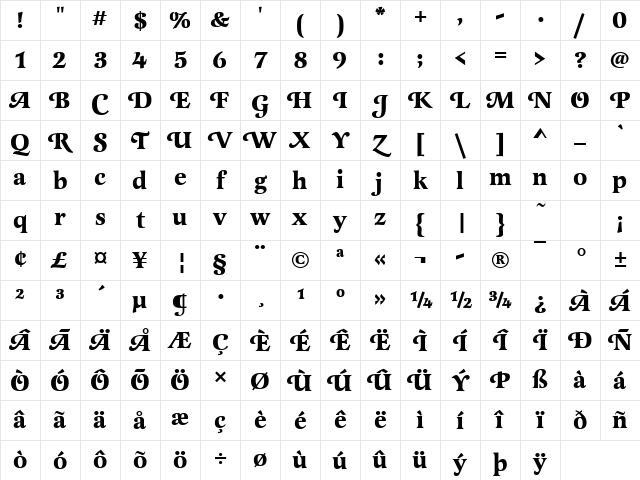
LatienneSwaT Bold
LatienneSwaT Family
LatienneSwaT Bold
Design Context for LatienneSwaT
LatienneSwaT is a composed and adaptable typeface that performs quietly and consistently across a wide range of design contexts. Its bold stroke weight gives it real presence on the page.
Pro Tip: Use LatienneSwaT in both headline and body roles to test its range before committing to a single application.